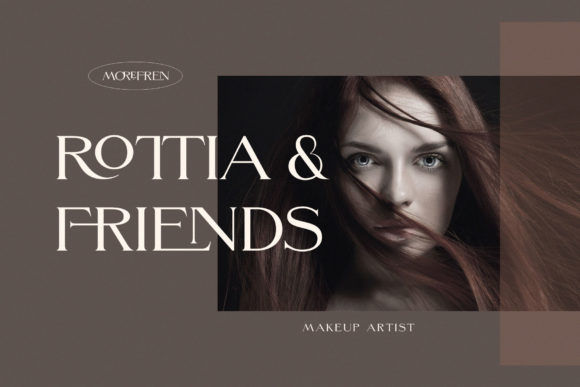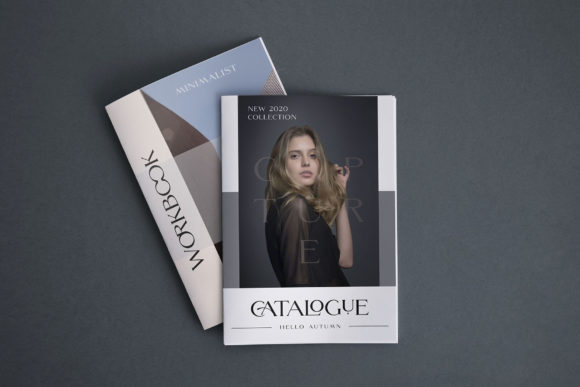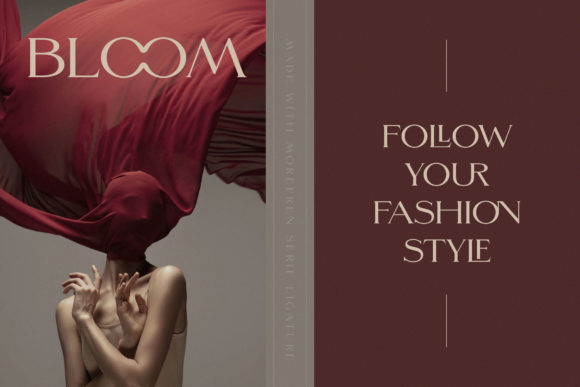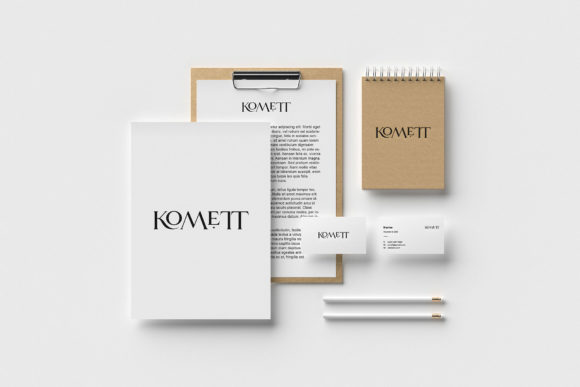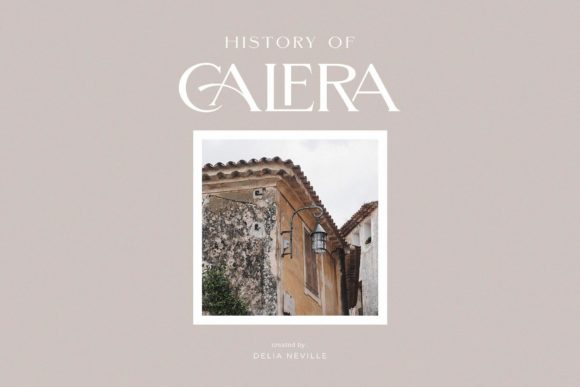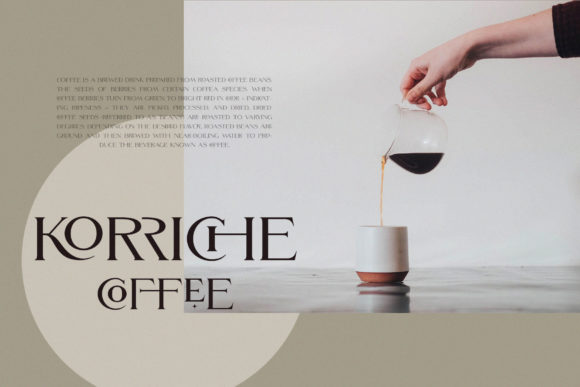
Introduction to Morefren Font
Do you remember that moment when you stumbled upon the perfect font for your creative project? It’s like finding a needle in a haystack, but instead of a needle, you found a beautiful, elegant serif font that elevates your design to the next level. For designers, this moment is a game-changer, and I’m excited to introduce you to the Morefren Font, a high-quality design resource that will take your creative projects to new heights.
With its incredibly versatile style, Morefren Font is perfect for designing beautiful wedding invitations, stunning social media posts, and gorgeous stationery art. Whether you’re working on a free download project or a paid design job, this font is sure to impress. Its transparent background and high-quality design make it a valuable asset for any designer looking to add a touch of sophistication to their work.
Key Features of Morefren Font
- High-quality font with a transparent background, perfect for creative projects requiring design flexibility.
- Unique characteristics include a modern, minimalist design and a wide range of glyphs, making it suitable for various creative projects.
- Perfect for designers, artists, and writers seeking a high-quality font to enhance their work.
Honest Review: Morefren Font
I recently had the chance to work with the Morefren Font, and I must say it’s been a great addition to my design resources. The Morefren Font is a high-quality font that can be downloaded for free, making it an excellent choice for designers working on creative projects.
- ✨ Great for titles and headings: The Morefren Font is perfect for creating attention-grabbing titles and headings, thanks to its unique and stylish design.
- ✨ Highly customizable: This font can be easily customized to fit your design needs, allowing for a transparent background and flexible use in various design projects.
However, I did encounter a few limitations while using the Morefren Font:
- ⚠️ Limited language support: Unfortunately, the Morefren Font only supports a limited number of languages, which might be a problem for designers working on multilingual projects.
- ⚠️ Not suitable for body text: While the Morefren Font is perfect for titles and headings, it’s not the best choice for body text due to its size and style.
Overall, I’m impressed with the Morefren Font and would definitely recommend it to designers looking for a high-quality, free font for their creative projects.
Tips for Getting the Most Out of the Morefren Font
Use the Morefren Font with a transparent background to give your design a clean and modern look. Experiment with different font sizes and styles to add visual interest to your project.
The Morefren Font is ideal for use in creative projects such as logo designs, brochures, and business cards. Its high-quality design and transparent background make it perfect for adding a professional touch to your designs.